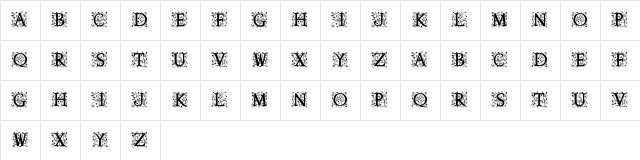
Anabel Alt Regular
| Foundry | Toto |
| Designer | Toto |
Design Context for Anabel Alt Typeface
Anabel Alt is a composed and adaptable typeface that performs quietly and consistently across a wide range of design contexts.